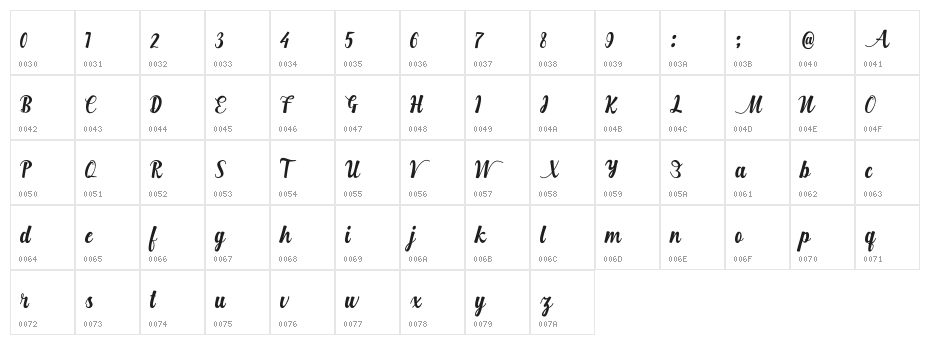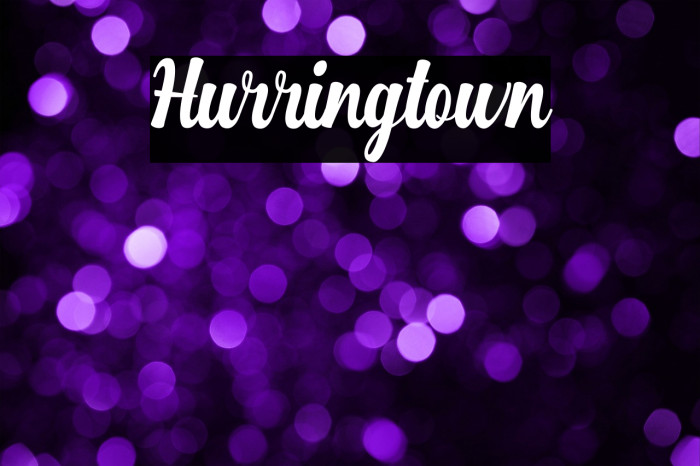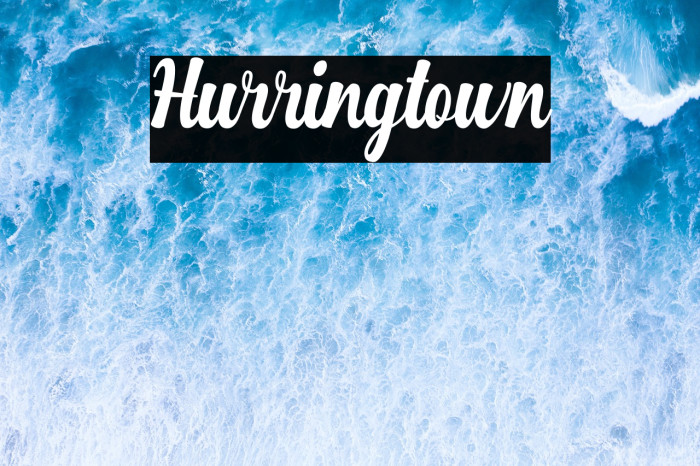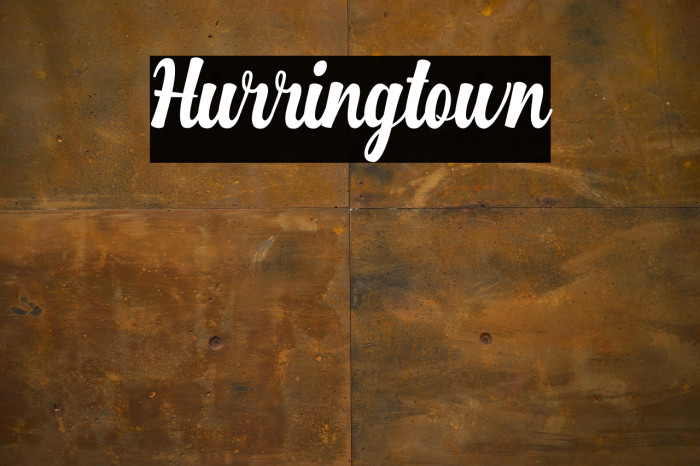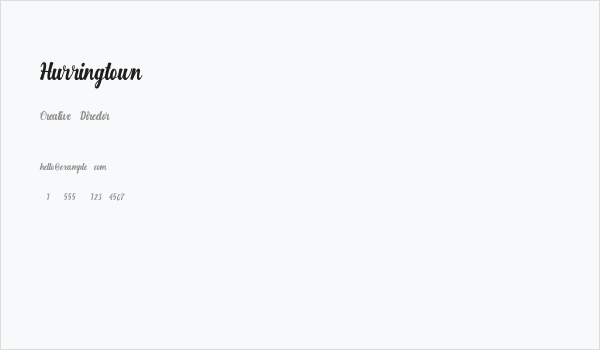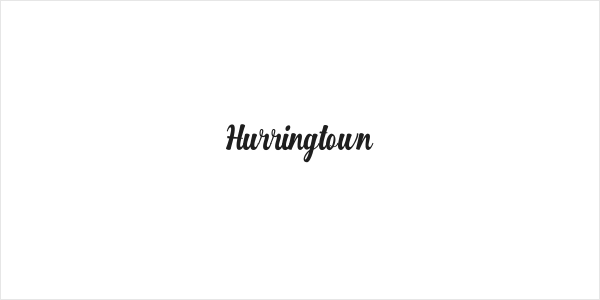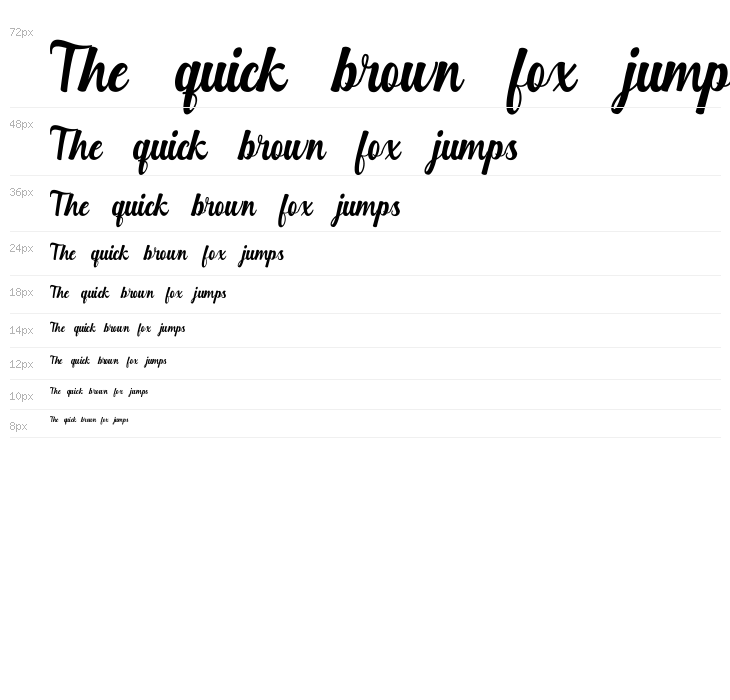
Hurringtown Font
Hurringtown Description
This font features an elegant and flowing script style with a modern touch. The uppercase letters are characterized by their sweeping curves and flourishes, giving them a sophisticated and decorative appearance. The lowercase letters maintain a consistent flow, with smooth connections between characters, enhancing the script's readability. The numerals are bold and slightly condensed, matching the overall aesthetic of the font. Special characters like $?&%!#*= are designed to complement the script style, maintaining the same elegant and fluid lines. This font is ideal for projects that require a touch of elegance and style, such as invitations, branding, and decorative headlines.
| Proposed Projects | Ideal for wedding invitations, branding, decorative headlines, and elegant stationery. |